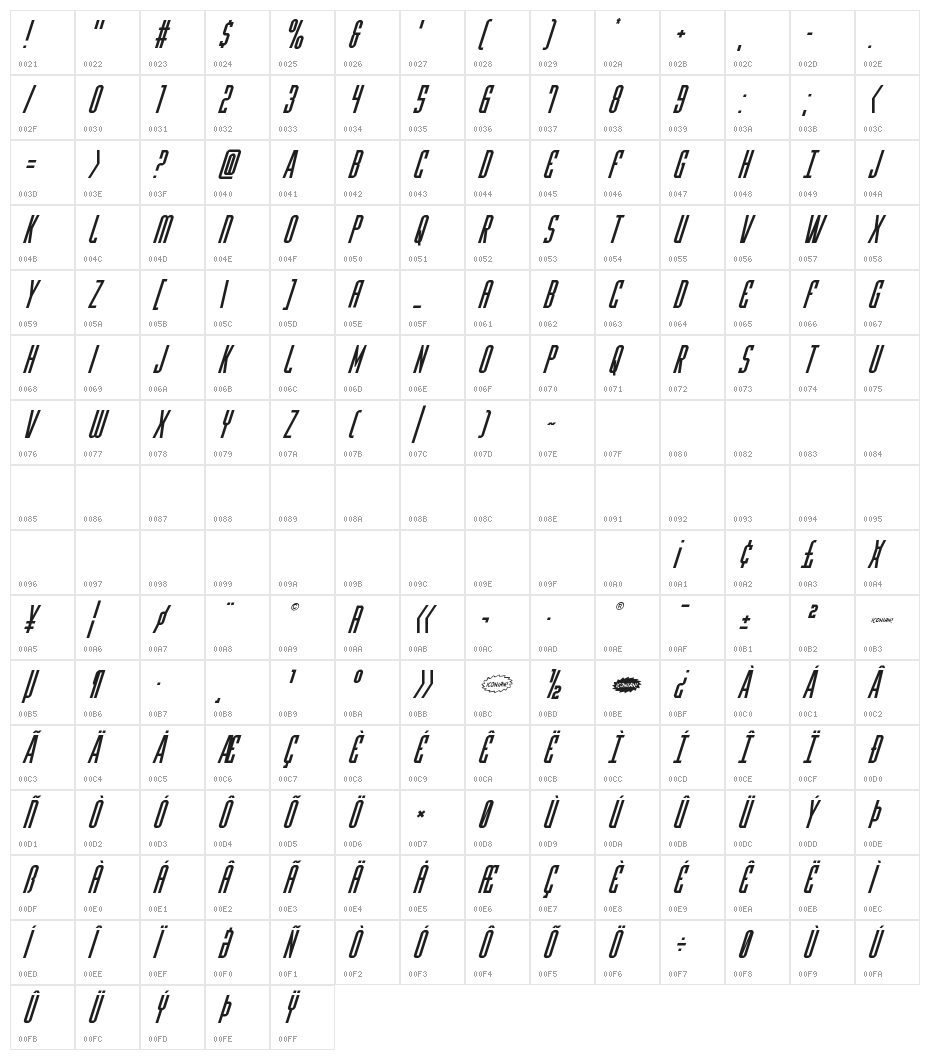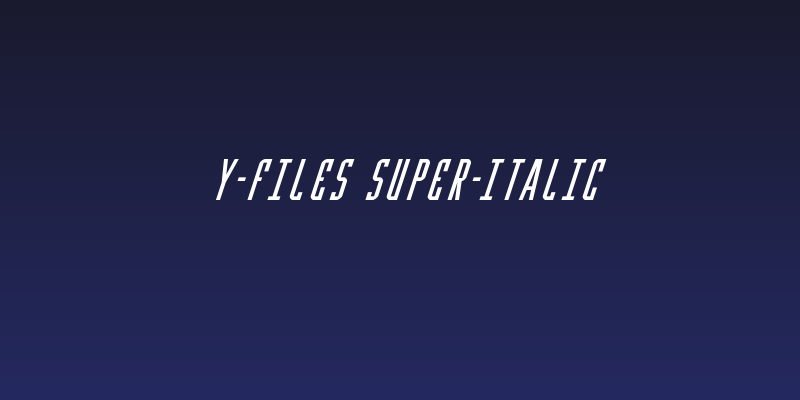
Y-Files Super-Italic Font
Y-Files Super-Italic Description
This font features a dynamic and modern italic style with elongated, narrow characters that convey a sense of speed and movement. The uppercase and lowercase letters maintain a consistent slant, enhancing the italicized effect. The numbers and special characters are designed with the same sleek and angular aesthetic, ensuring uniformity across all glyphs. The font's sharp edges and clean lines make it suitable for projects that require a contemporary and energetic look. Its unique style is ideal for creating eye-catching headlines, posters, and branding materials that demand attention.
| Proposed Projects | Ideal for sports branding, dynamic posters, modern advertisements, and eye-catching headlines. |